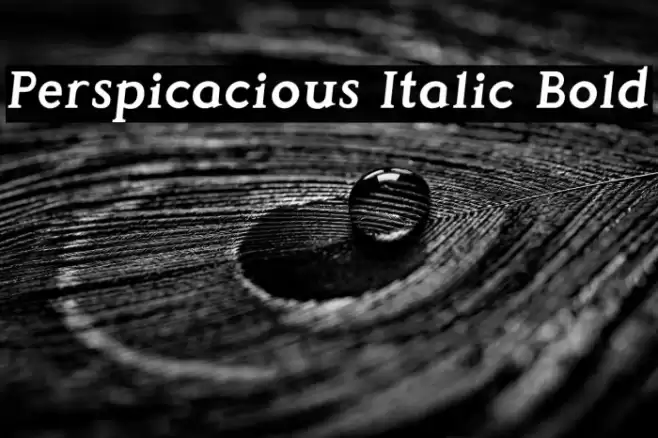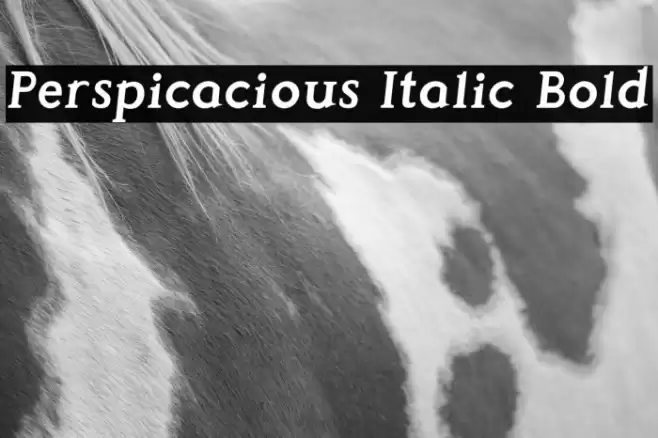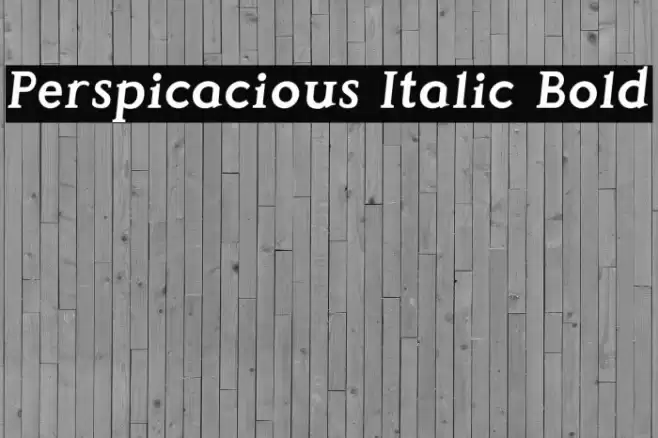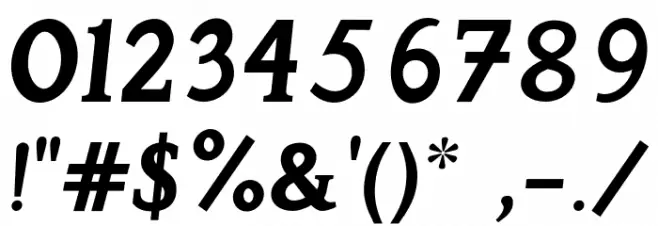
Perspicacious Italic Bold Font
Perspicacious Italic Bold Description
This font exhibits a bold and italicized style, characterized by its dynamic and flowing appearance. The letters have a slight forward slant, enhancing the sense of movement and elegance. The strokes are thick and consistent, providing a strong visual impact. The serifs are pronounced, adding a touch of classic sophistication. The numbers and special characters maintain the same bold and italicized features, ensuring uniformity across all glyphs. This font's design is both assertive and graceful, making it suitable for a variety of creative applications.
A bold, italic serif font with dynamic and elegant features from Uncategorized fonts.
- Proposed Projects: Ideal for branding, editorial design, book covers, and elegant invitations.
- Overall Style: Classic
- Use Case: Headlines, Logos, Editorial design